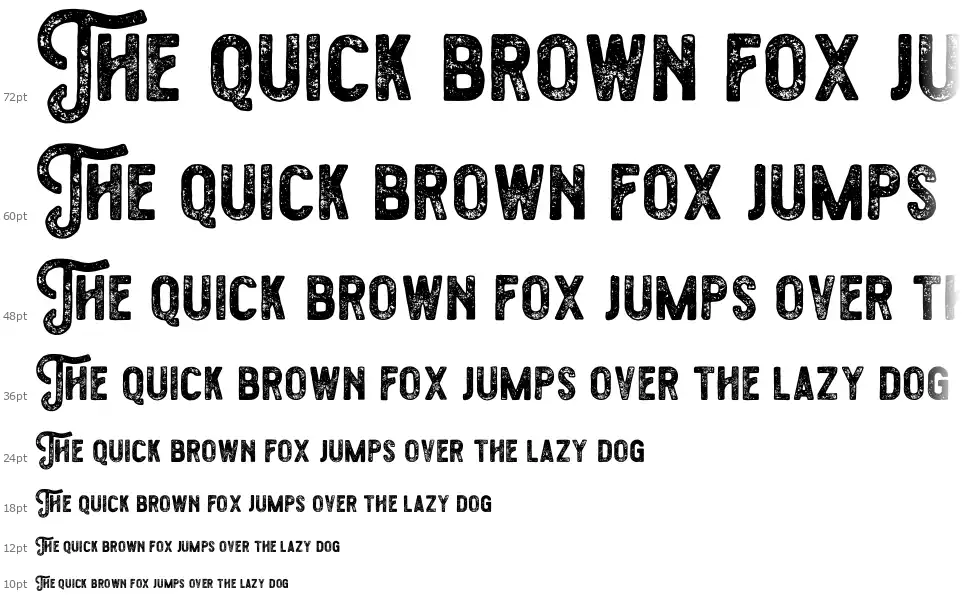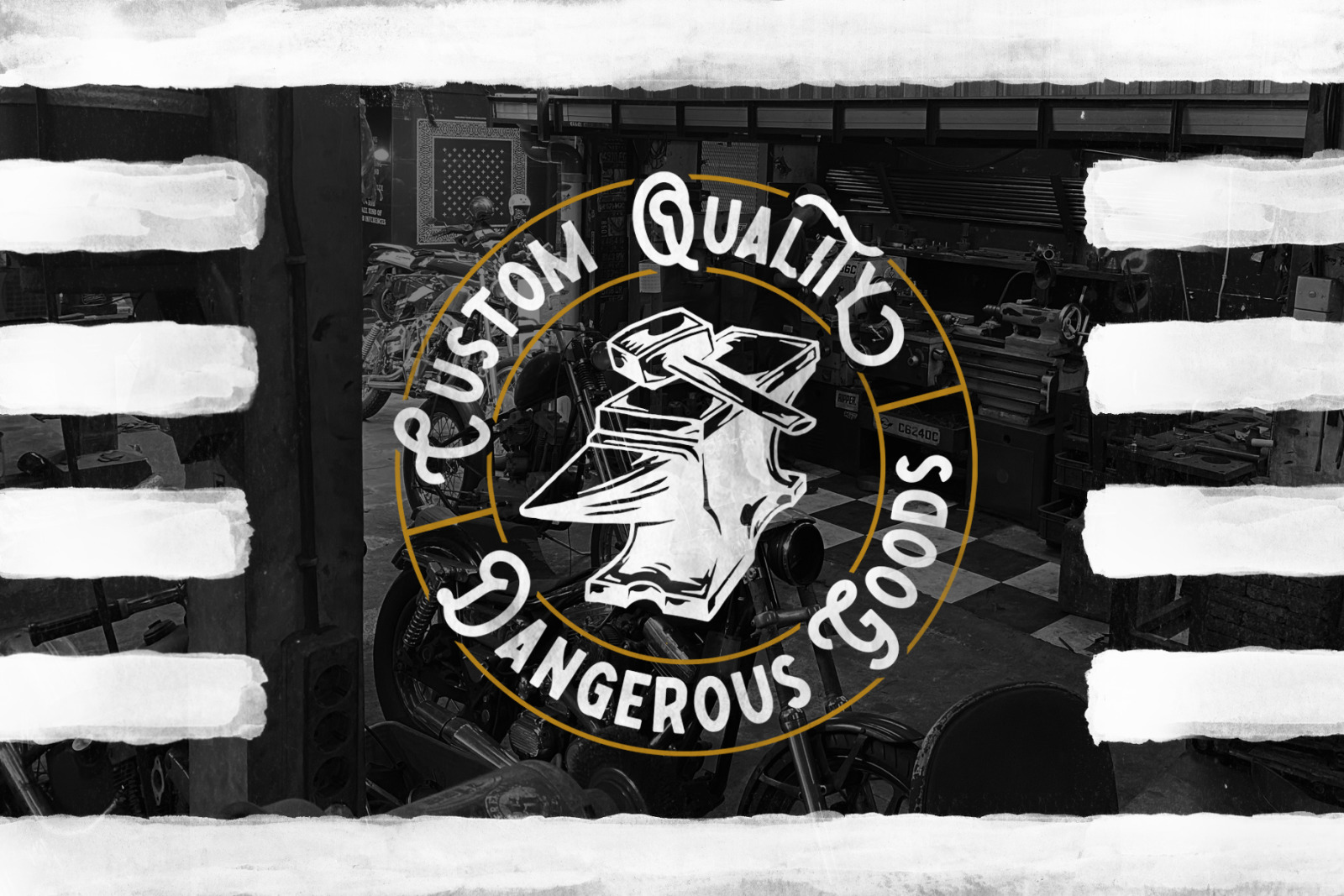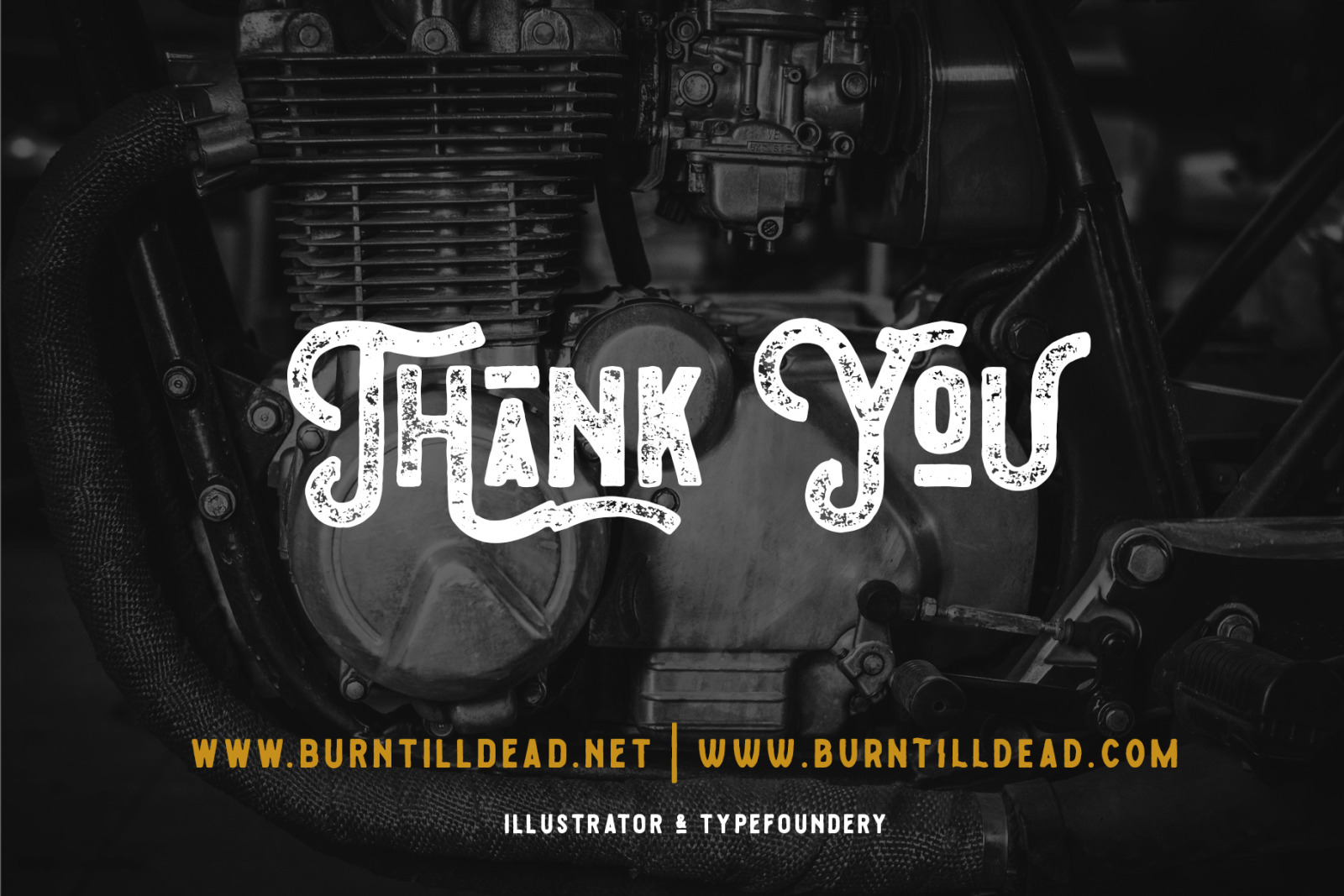
Metalsmith Script Paint Font Free .   metalsmith paint font free download.   started from the enthusiasm of custom motorcycles, artsy looks of hand made typefaces & illustrations, along with the freedom vibes that came.   free download of metalsmith font.   metalsmith script font bonus came in 26 script characters, see the preview on page 7. Started from the enthusiasm of custom motorcycles, artsy looks of hand made.  download and install the metalsmith font by eric kurniawan. A great choice for highlighting your design elements. The metalsmith font has been downloaded. Moreover, you can embed it to your website.  say hi to “metalsmith” font family, a stylish custom culture typeface.   the metalsmith script paint font has a script typography and is great for elegant invitation art. Really bring an identical looks once you combine with the.
download and install the metalsmith font by eric kurniawan.   the metalsmith script paint font has a script typography and is great for elegant invitation art.   started from the enthusiasm of custom motorcycles, artsy looks of hand made typefaces & illustrations, along with the freedom vibes that came.   free download of metalsmith font. Moreover, you can embed it to your website. Started from the enthusiasm of custom motorcycles, artsy looks of hand made.   metalsmith paint font free download.  say hi to “metalsmith” font family, a stylish custom culture typeface. Really bring an identical looks once you combine with the. The metalsmith font has been downloaded.
Metalsmith Script Paint Font Free    metalsmith script font bonus came in 26 script characters, see the preview on page 7. Started from the enthusiasm of custom motorcycles, artsy looks of hand made.  say hi to “metalsmith” font family, a stylish custom culture typeface. Moreover, you can embed it to your website. The metalsmith font has been downloaded.   free download of metalsmith font.   started from the enthusiasm of custom motorcycles, artsy looks of hand made typefaces & illustrations, along with the freedom vibes that came.   metalsmith script font bonus came in 26 script characters, see the preview on page 7. A great choice for highlighting your design elements.   the metalsmith script paint font has a script typography and is great for elegant invitation art. Really bring an identical looks once you combine with the.  download and install the metalsmith font by eric kurniawan.   metalsmith paint font free download.